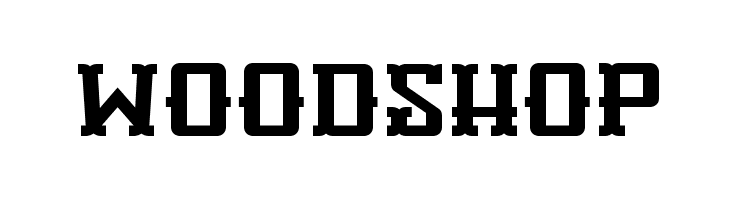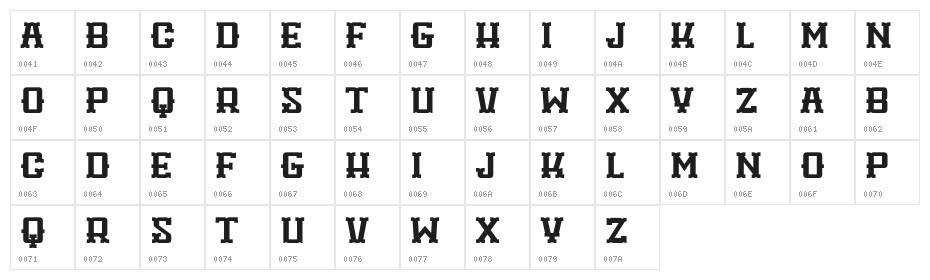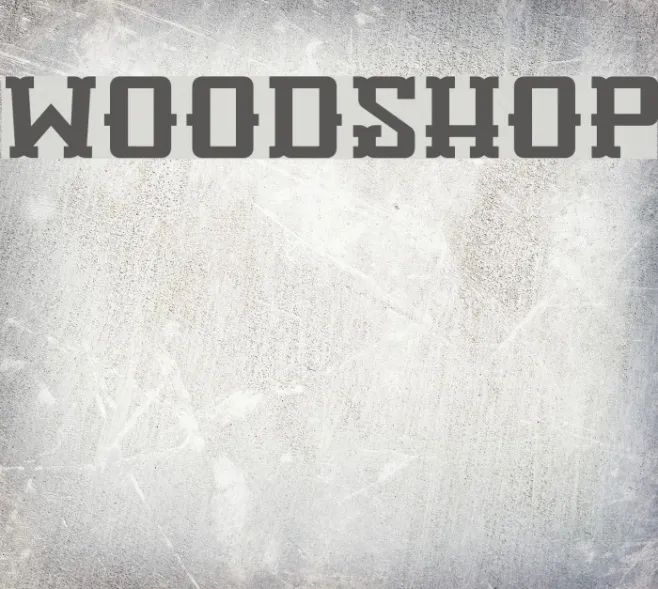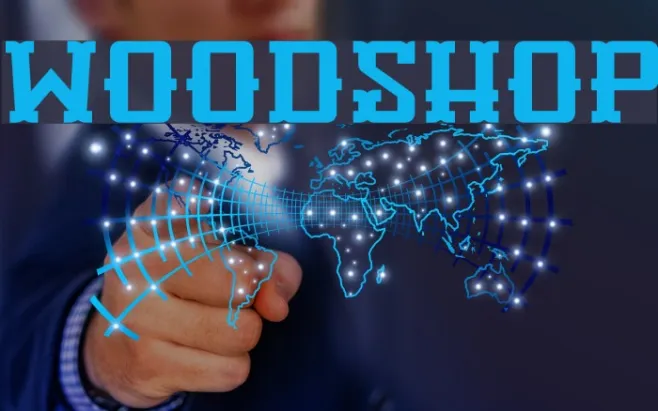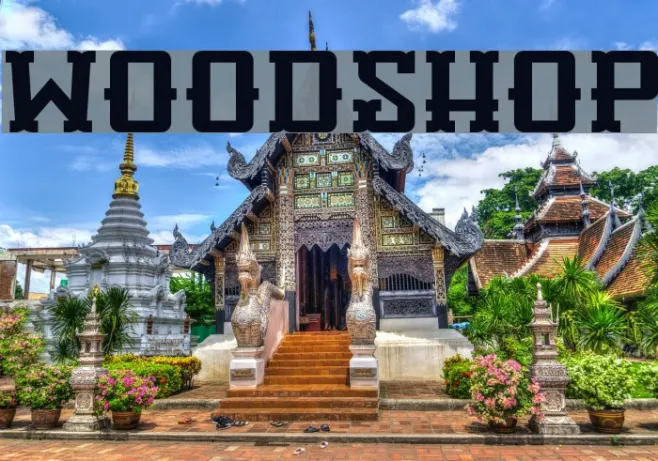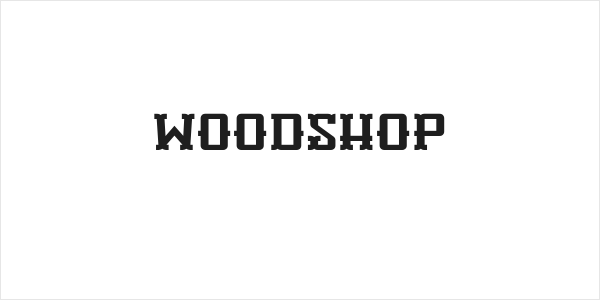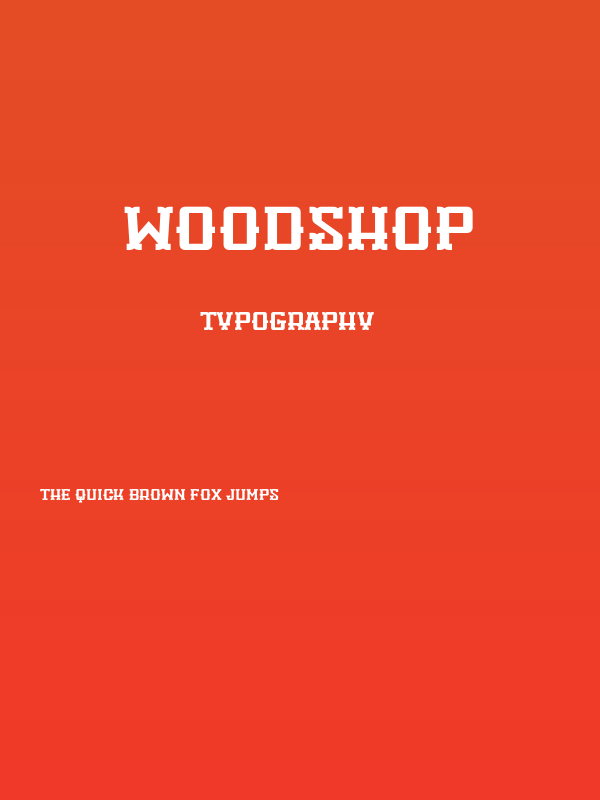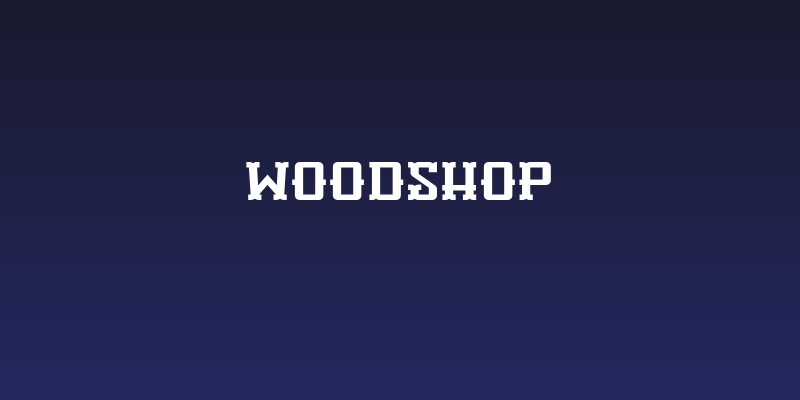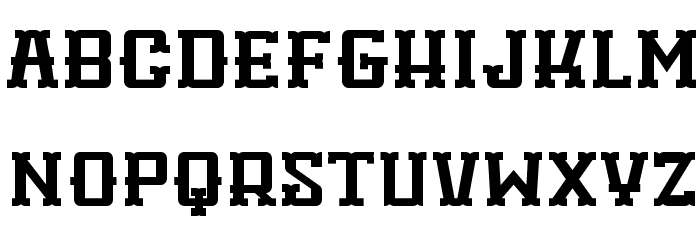
Woodshop Font
Woodshop Description
This font features a bold, blocky design with a distinct industrial and mechanical feel. The characters are constructed with thick, uniform strokes that give them a sturdy and robust appearance. The serifs are pronounced and angular, adding to the font's strong and commanding presence. The overall style is reminiscent of vintage signage or machinery labels, making it ideal for projects that require a bold and impactful look. The uppercase letters are particularly striking, with their geometric shapes and consistent weight, while the lowercase letters maintain the same boldness and clarity.
| Use Case | Headlines, Logos, Signage |
| Proposed Projects | Ideal for vintage-themed posters, industrial design projects, signage, and branding that requires a strong, impactful typeface. |